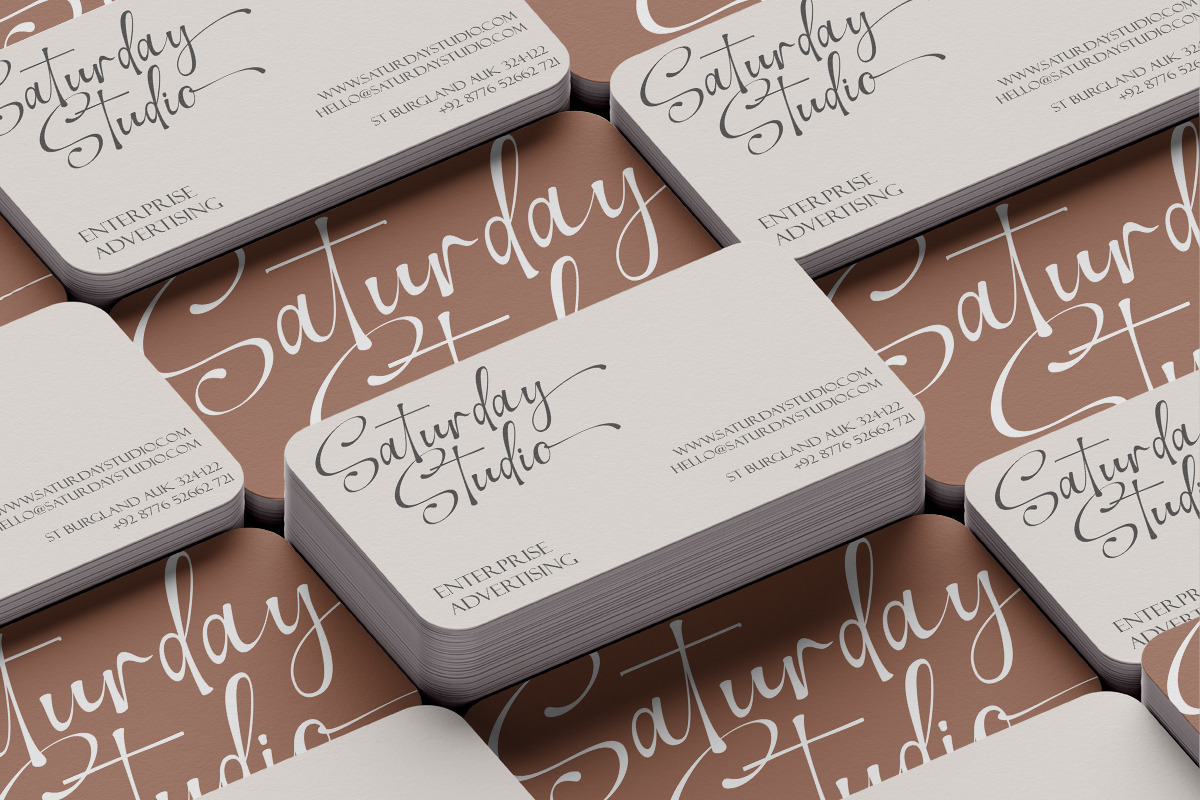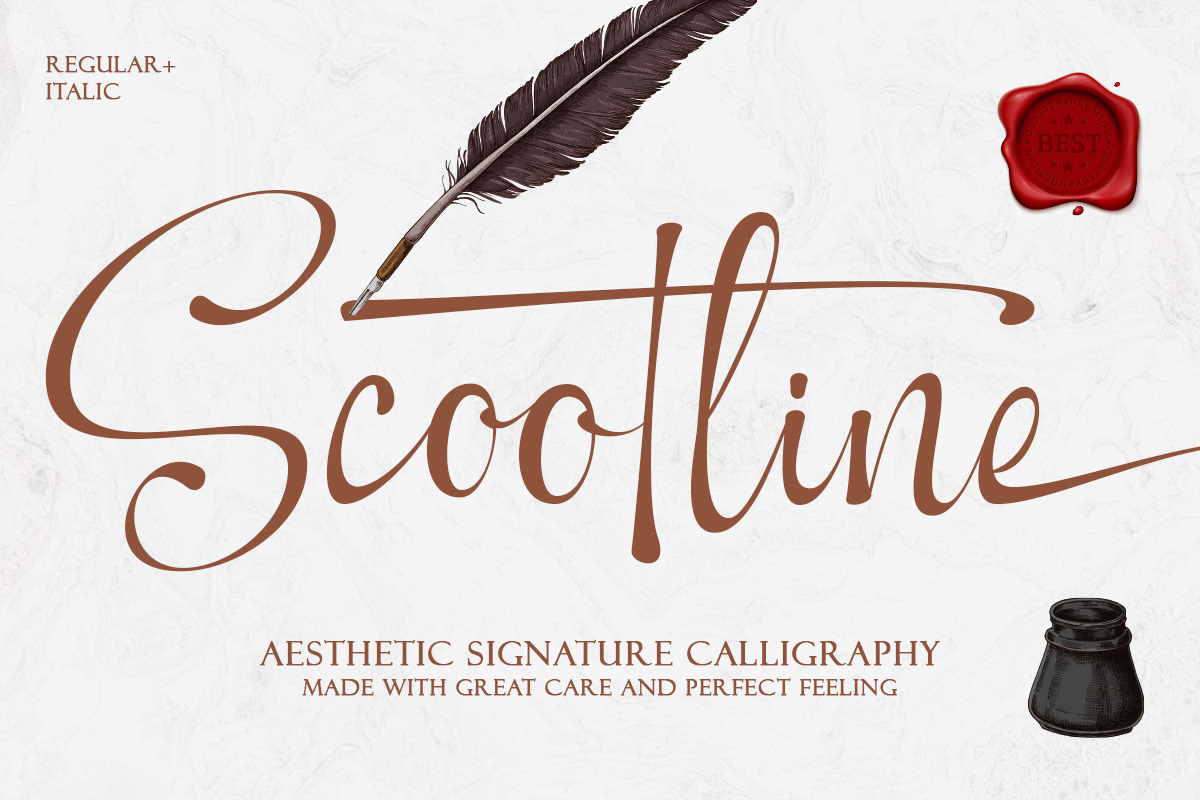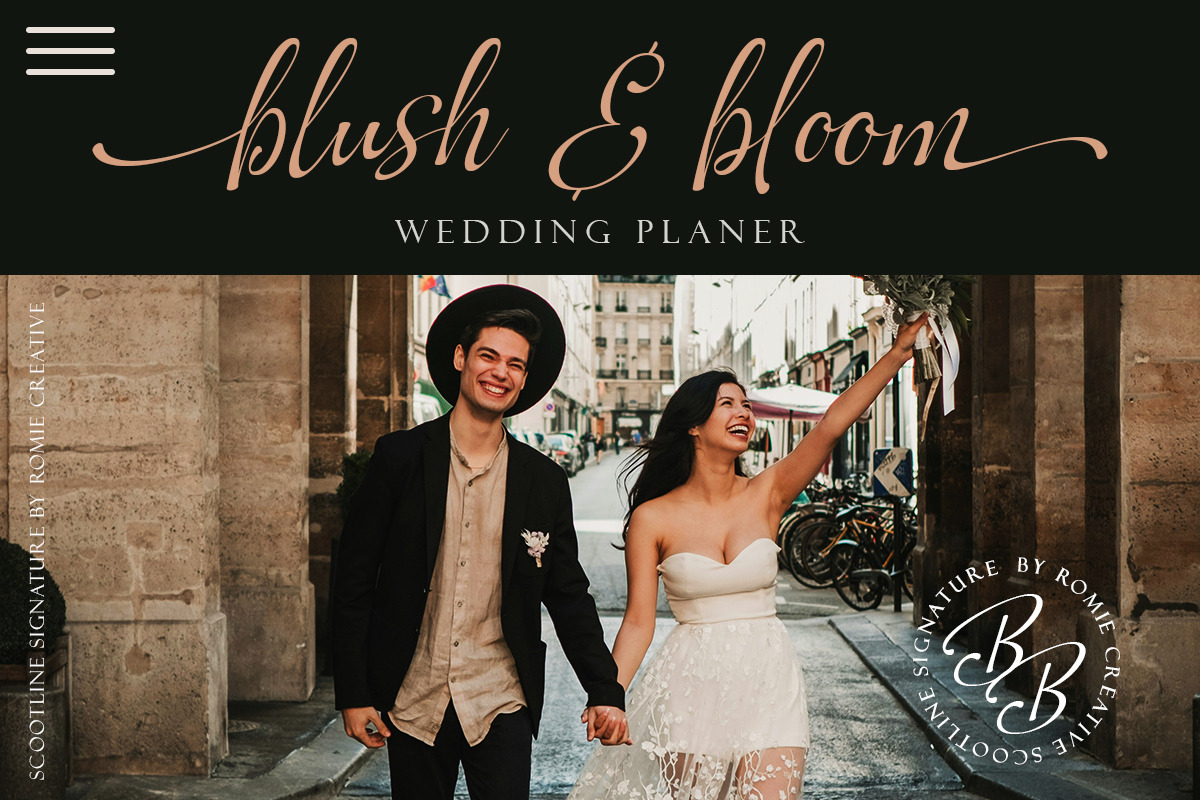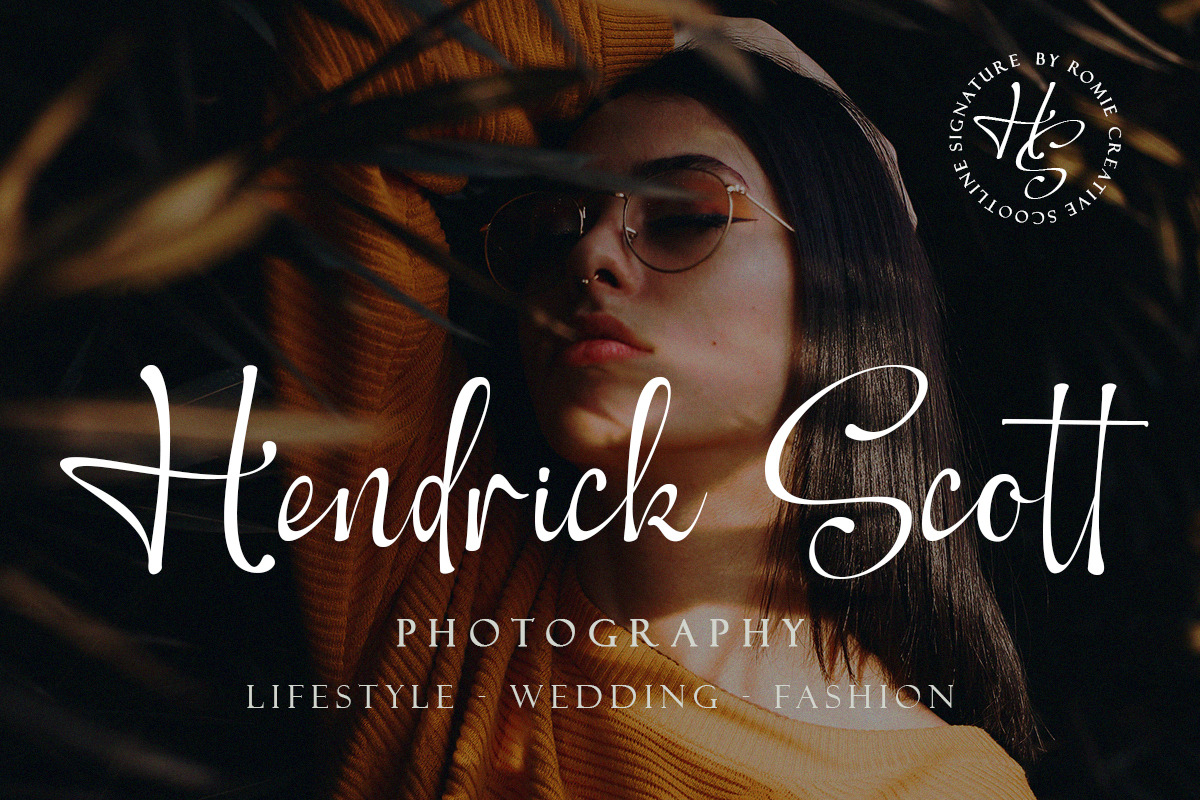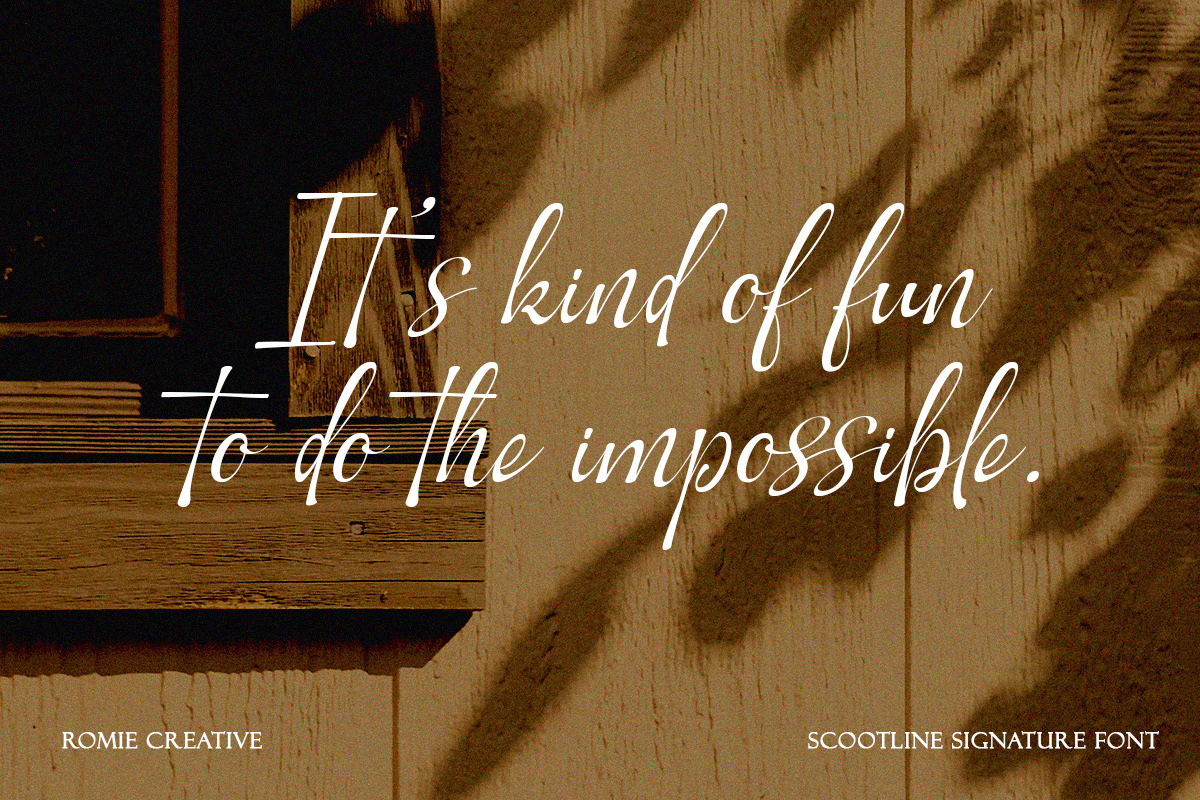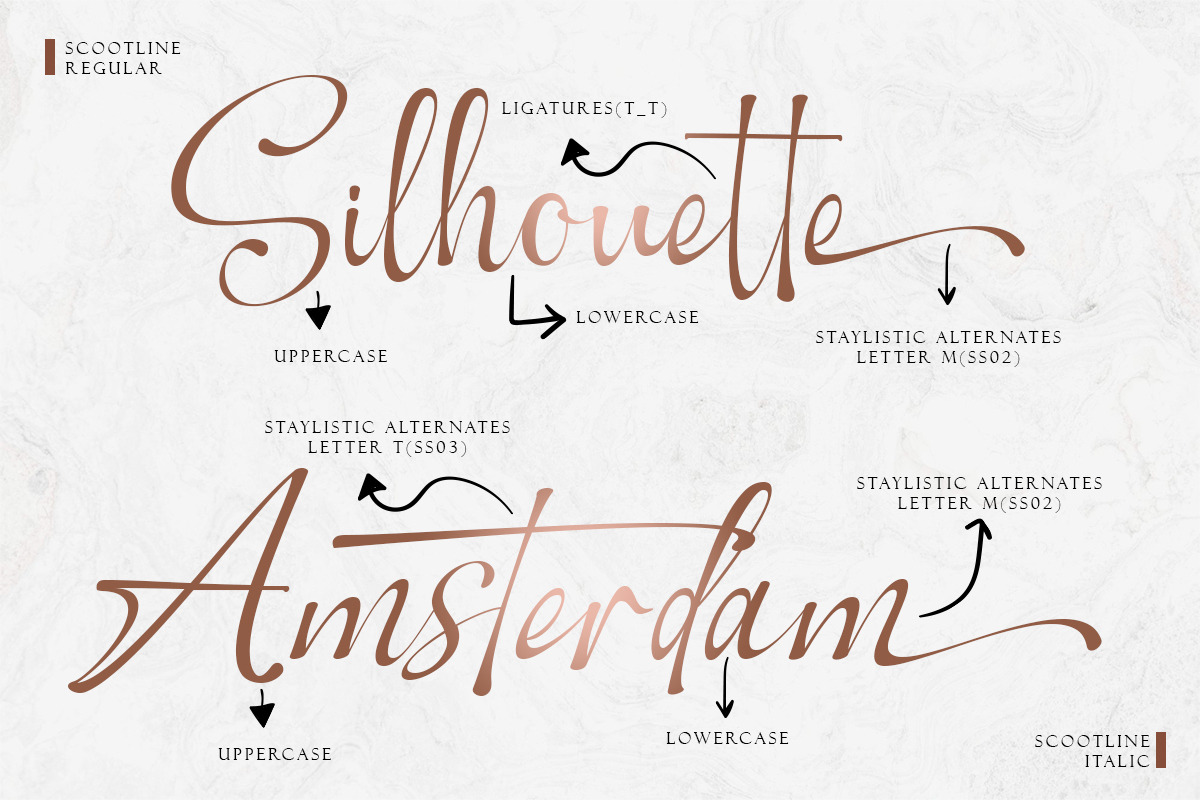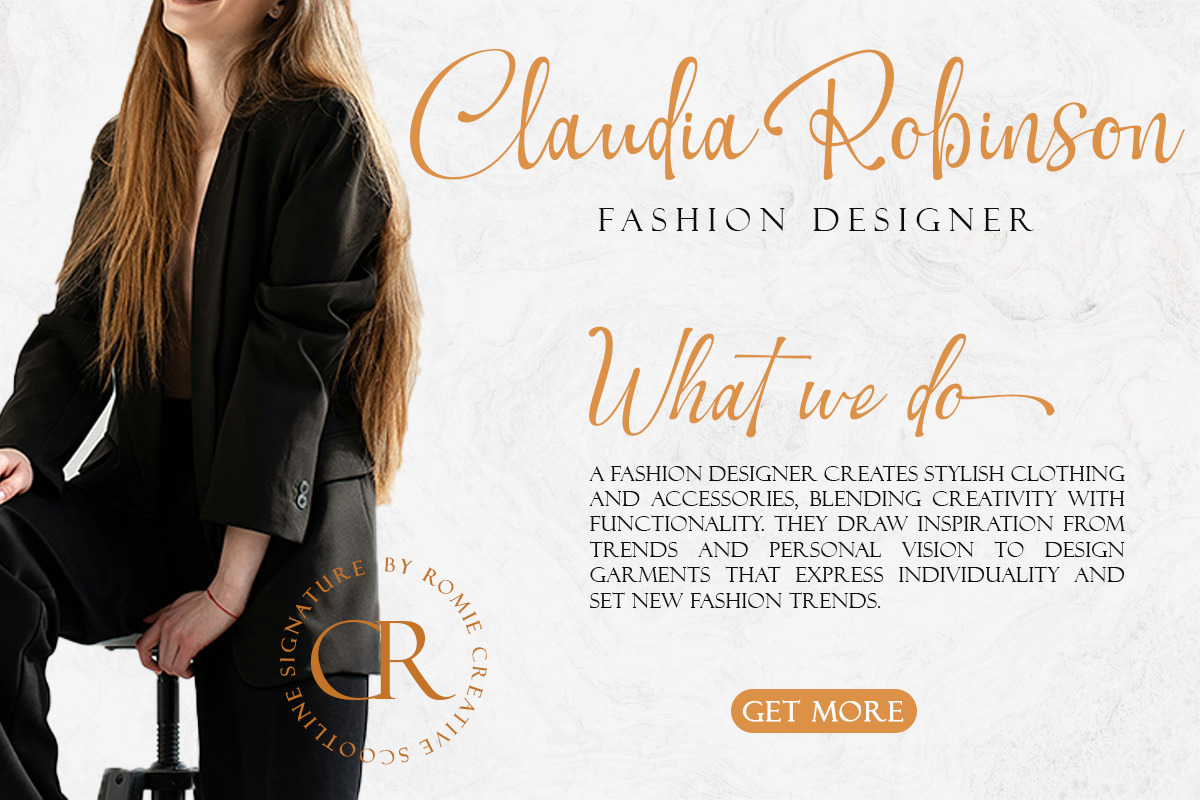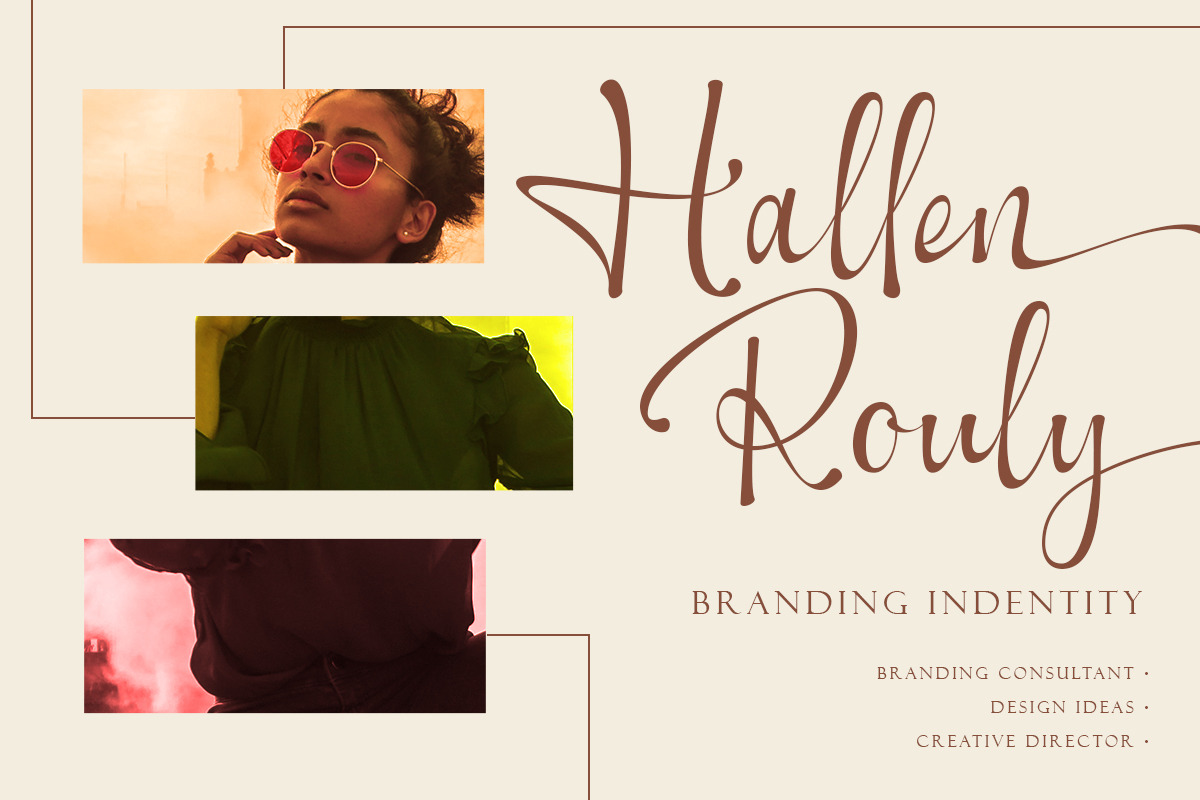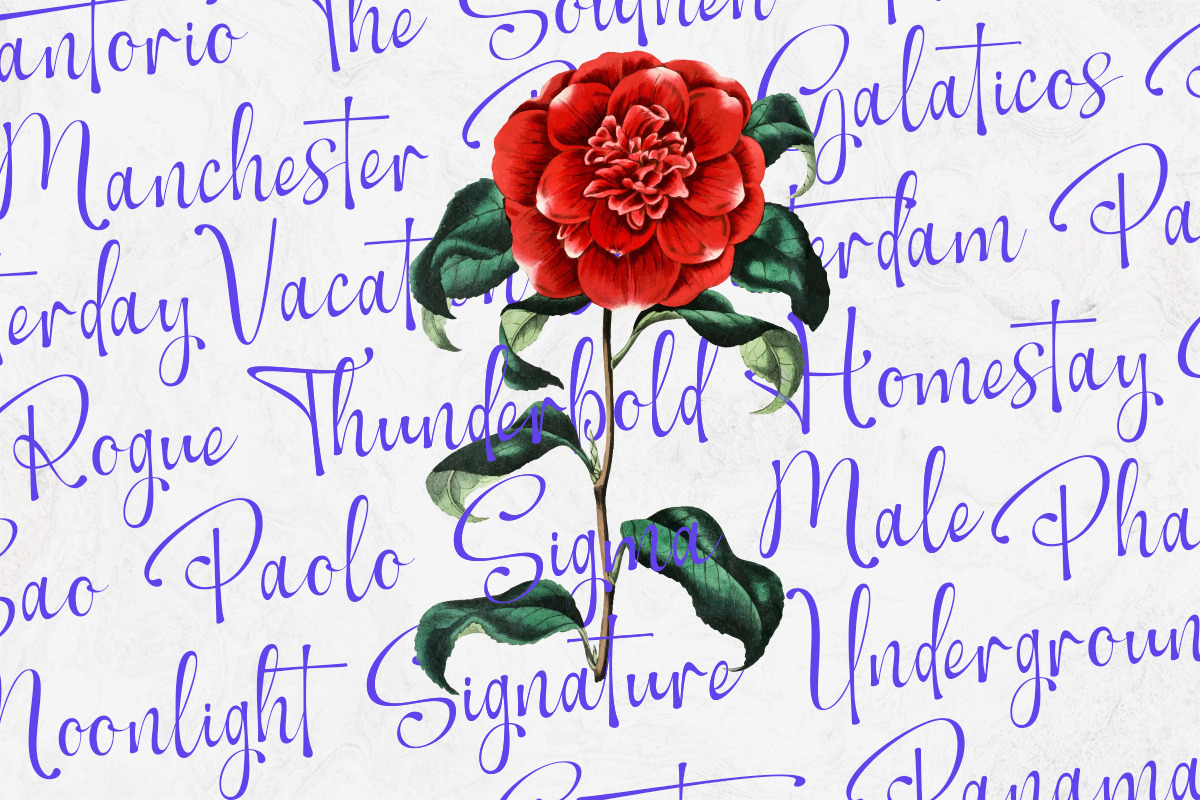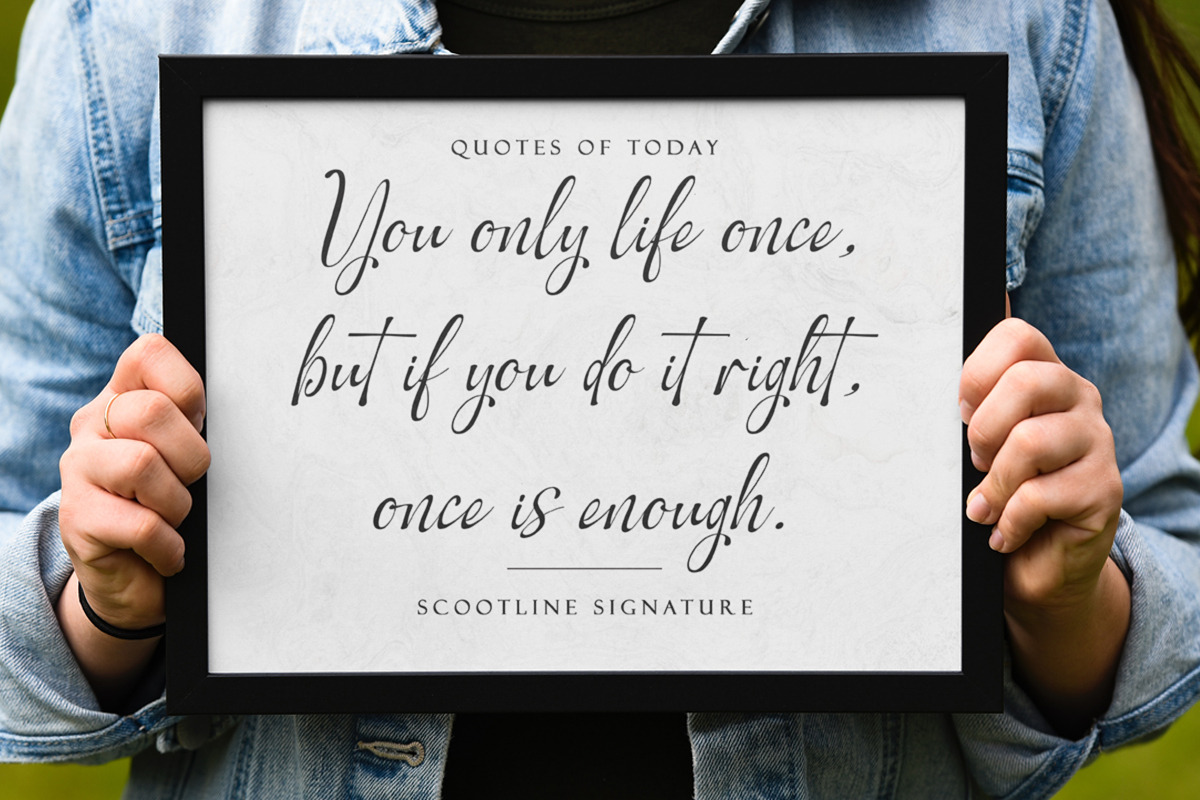
Scootline Signature Script Font
Scootline Signature is a stylish modern calligraphy font with casual chic flair. It is perfect for branding, wedding invites and cards, signature and maybe for red wine label.
Scootline Signature includes full set of gorgeous uppercase and lowercase letters, numerals, a large range of punctuation and variation ligatures. All lowercase letters include beginning and ending swashes, giving realistic hand-lettered style. What you get, darling?